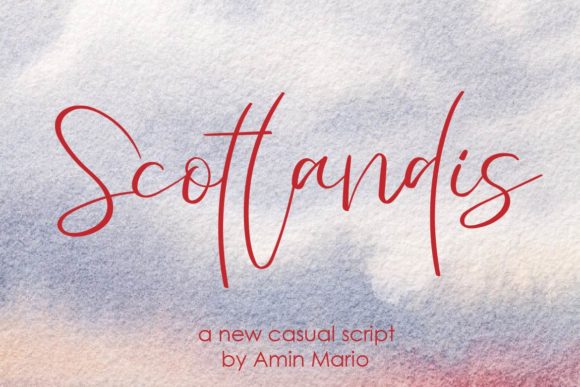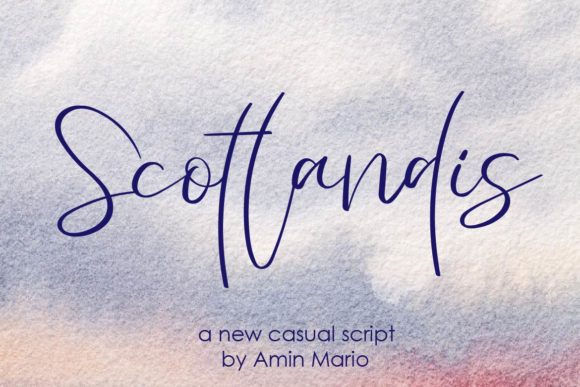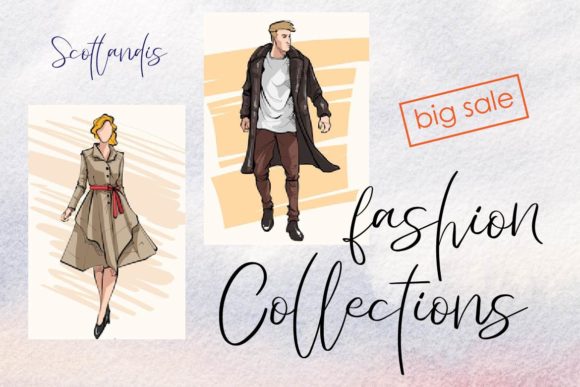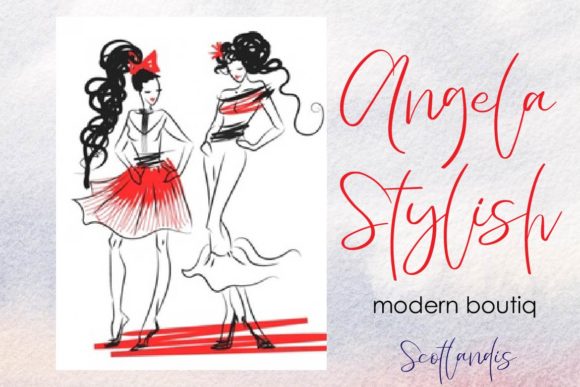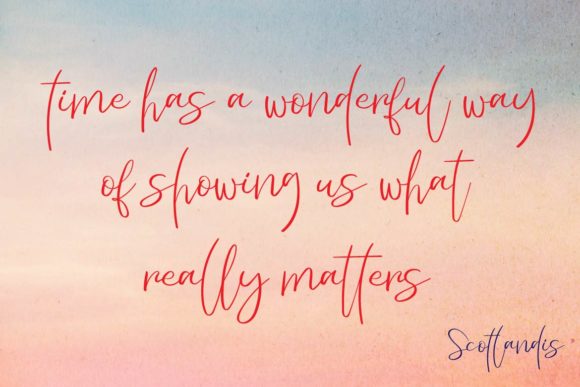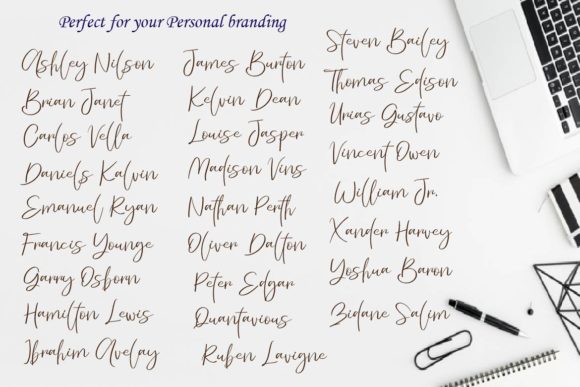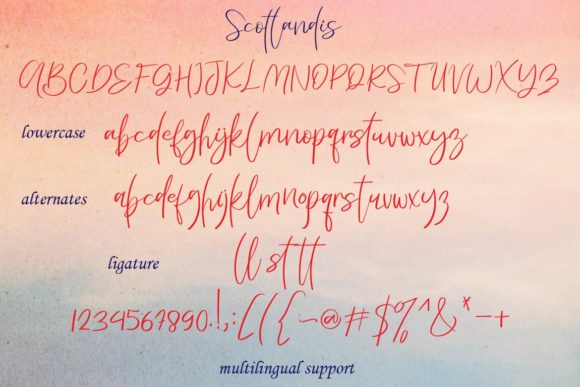
Scotlandis Font
About Scotlandis Font
Scotlandis is a gorgeous and light script font that features an effortlessly beautiful handwritten feel. It will ignite your creativity with its gorgeous range of alternates.
This font is PUA encoded which means you can access all of the pretty glyphs and swashes with ease! It also features a wealth of special features including alternate glyphs and ligatures.